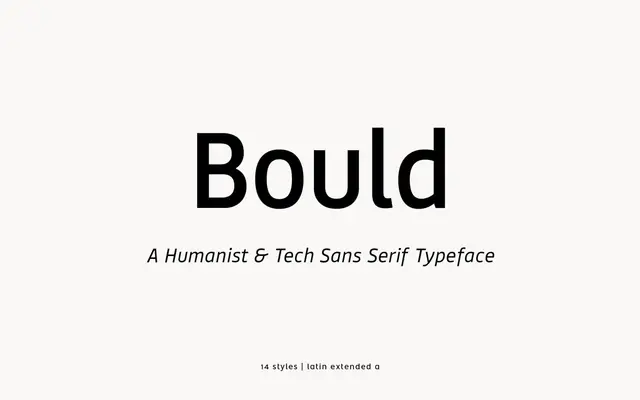
Bould
atipo foundry · Raul Garcia del Pomar, Ismael Gonzalez · 2019
Bould specimen from atipo foundry
A rounded geometric sans from atipo with seven weights and matching italics, built for warm, contemporary identity and interface work.
A geometric sans by Raul Garcia del Pomar and Ismael Gonzalez at atipo foundry. Bould runs across seven weights from Thin to Bold with matching italics, with even stroke weight, soft terminals and tabular figures, fractions and stylistic alternates available through OpenType features. The pay-what-you-want model makes it a common choice for identity and screen work that wants a friendly, geometric tone without the over-familiarity of Circular or Avenir.
A rounded geometric sans by atipo, sitting between geometric and humanist with soft terminals and even stroke weight. Designed for screen and identity work where a contemporary, friendly tone is wanted.